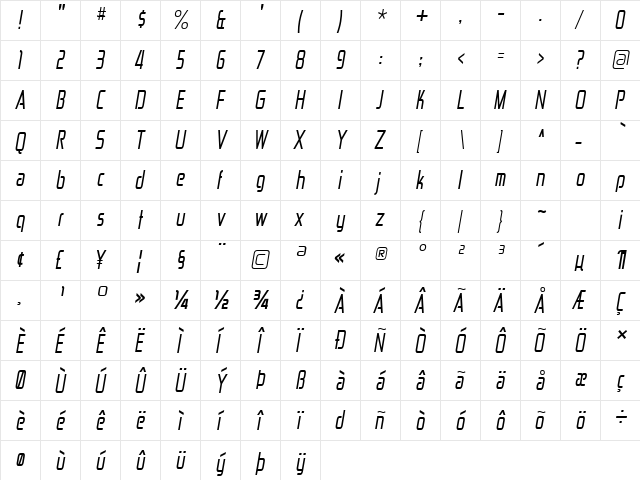
Zekton Cd Italic
Design Context for Zekton Cd Typeface
Zekton Cd is a composed and adaptable typeface that performs quietly and consistently across a wide range of design contexts. Its italic angle brings a sense of urgency and motion to the letterforms.